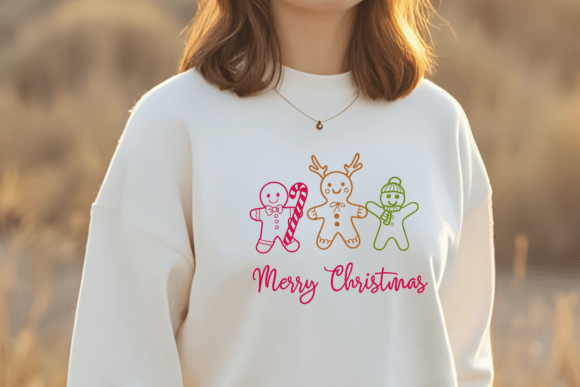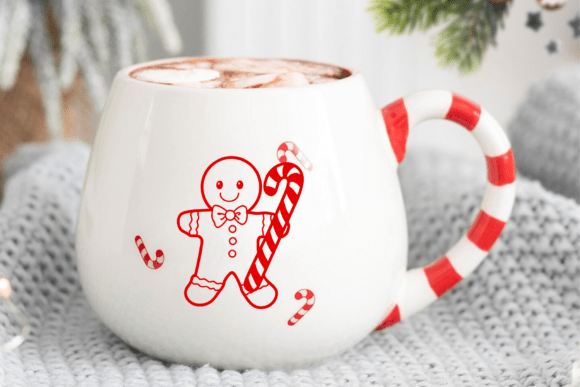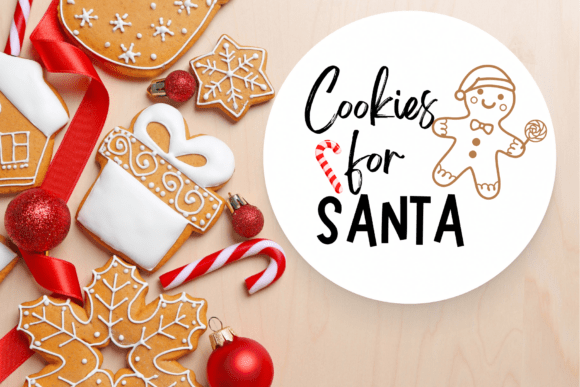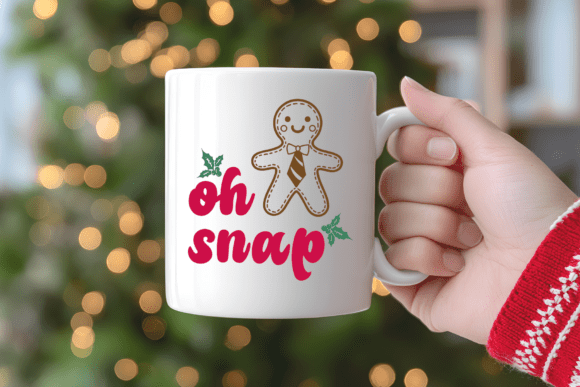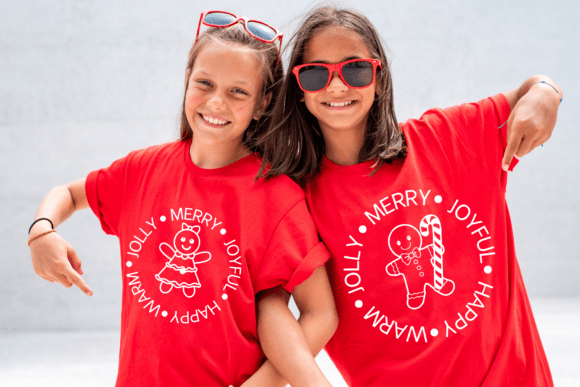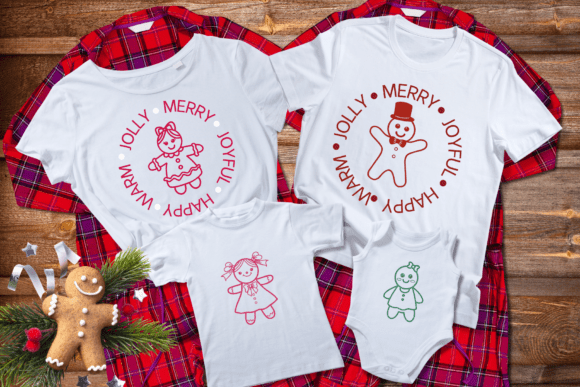
Cute Gingerbread Font: A Delightful Collection of Playful Gingerbread Characters
Are you looking for a fun and festive font to add a touch of Christmas cheer to your designs? Look no further than the Cute Gingerbread Dingbat Font! This delightful collection of playful gingerbread characters is perfect for kids and festive designs, featuring adorable cookie boys, girls, reindeer, and Christmas accessories.
What is Cute Gingerbread Dingbat Font?
The Cute Gingerbread Dingbat Font is a unique and charming collection of gingerbread-themed characters, designed to bring a smile to your face and a touch of holiday magic to your creative projects. Each dingbat is carefully crafted to showcase a variety of gingerbread characters, from sweet cookie boys and girls to playful reindeer and festive Christmas accessories.
Perfect for Festive Designs
The Cute Gingerbread Dingbat Font is ideal for a wide range of festive designs, including greeting cards, gift tags, stickers, and holiday crafts. Whether you’re a designer, crafter, or DIY enthusiast, this font is sure to add a cheerful and cozy Christmas charm to your projects. Imagine creating adorable holiday cards, gift tags, and decorations with these playful gingerbread characters – it’s sure to delight kids and adults alike!
Key Features of Cute Gingerbread Dingbat Font
- Playful Gingerbread Characters: The font features a delightful collection of gingerbread characters, including cookie boys, girls, reindeer, and Christmas accessories.
- Perfect for Kids: The cute and playful designs are perfect for kids’ projects, making it an ideal choice for children’s party invitations, holiday crafts, and educational materials.
- Festive and Fun: The font is designed to add a touch of holiday cheer to your designs, making it perfect for festive projects, such as Christmas cards, gift tags, and holiday decorations.
Ideas for Using Cute Gingerbread Dingbat Font
The possibilities are endless when it comes to using the Cute Gingerbread Dingbat Font! Here are a few ideas to get you started:
- Holiday Cards: Create adorable holiday cards with gingerbread characters, perfect for sending to friends and family.
- Gift Tags: Add a personal touch to your gifts with custom gift tags featuring gingerbread characters.
- Stickers: Create fun and festive stickers with gingerbread characters, perfect for decorating holiday gifts, cards, and crafts.
- Holiday Crafts: Use the font to create festive holiday crafts, such as gingerbread-themed decorations, garlands, and wreaths.
Here are a few tips for designers and crafters looking to get the most out of the Cute Gingerbread Dingbat Font:
- Experiment with Colors: Try pairing the gingerbread characters with festive colors, such as red, green, and gold, to add an extra touch of holiday cheer to your designs.
- Mix and Match: Combine the gingerbread characters with other festive fonts and graphics to create unique and eye-catching designs.
- Get Creative: Don’t be afraid to think outside the box and come up with innovative ways to use the Cute Gingerbread Dingbat Font in your designs.